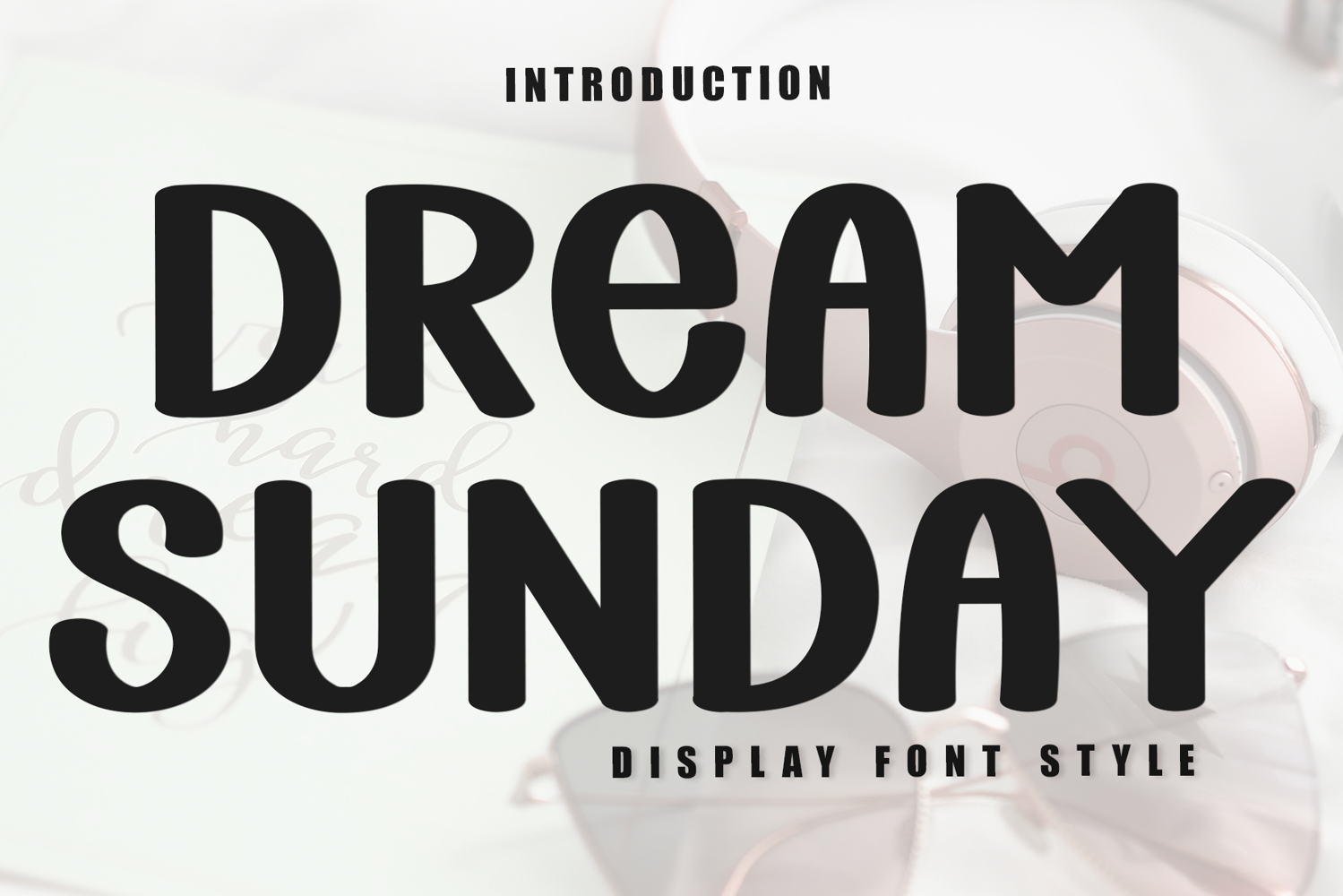
Dream Sunday
Dream Sunday is a beautiful and eye-catching font designed with a soft, unique touch. Its distinctive strokes give it a special character, making it meaningful and versatile for future use. With various characters, it’s perfect for design projects, crafts, and other creative works.